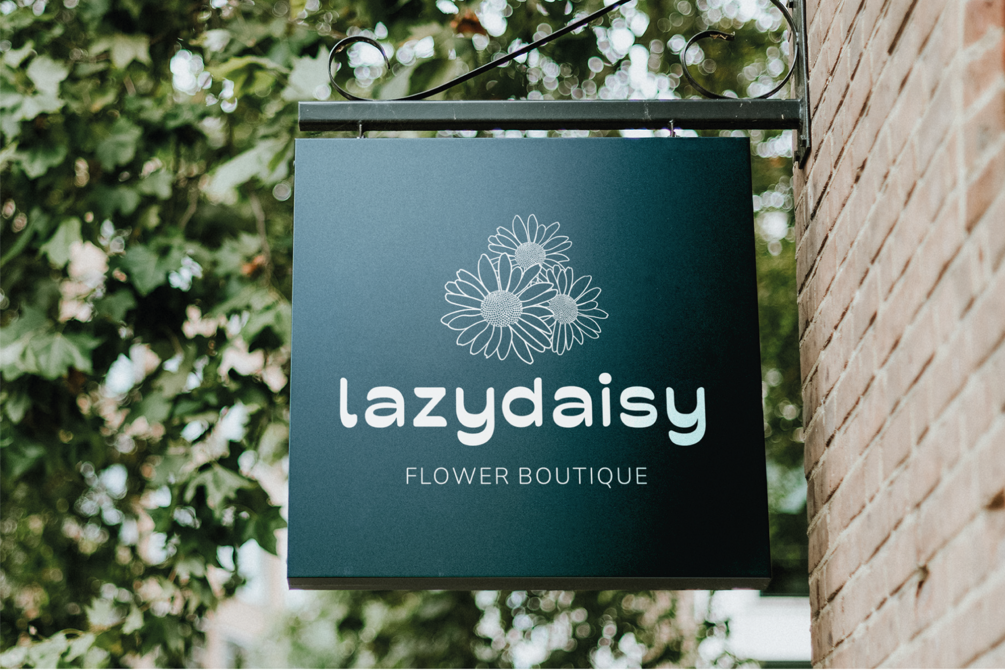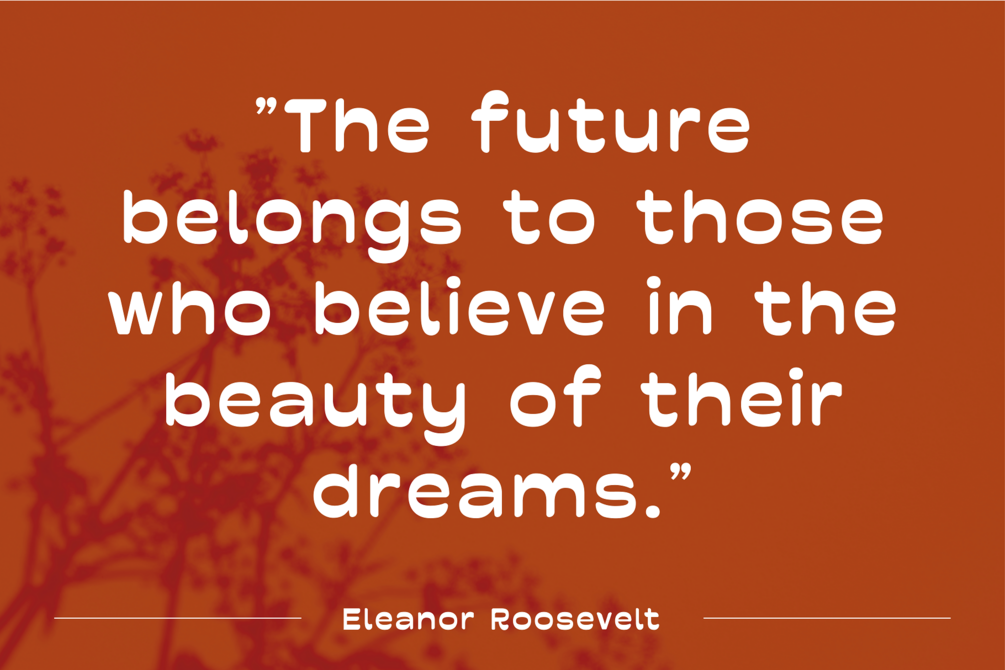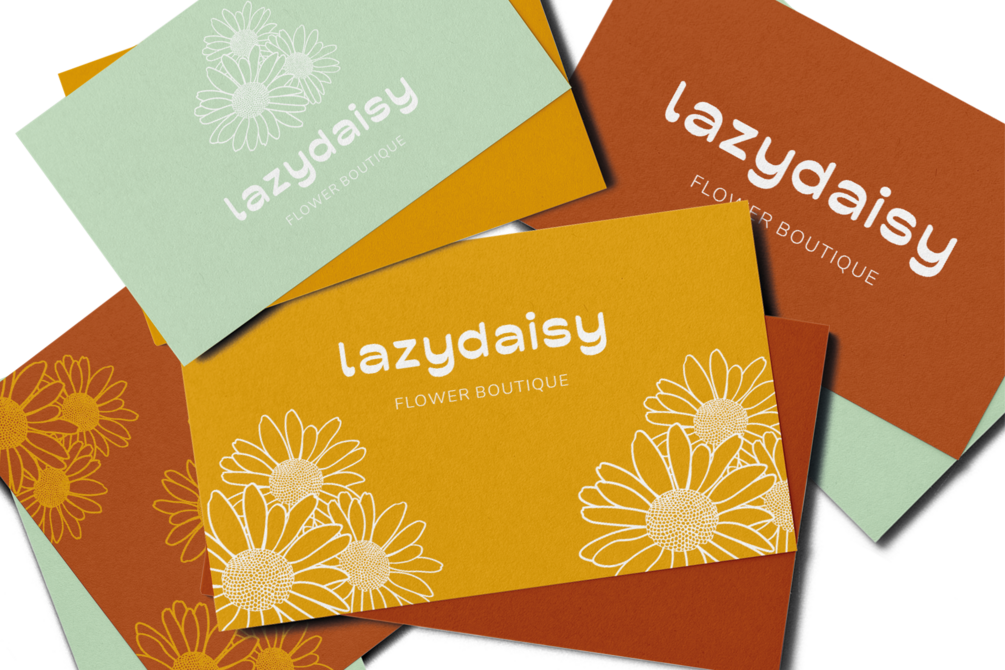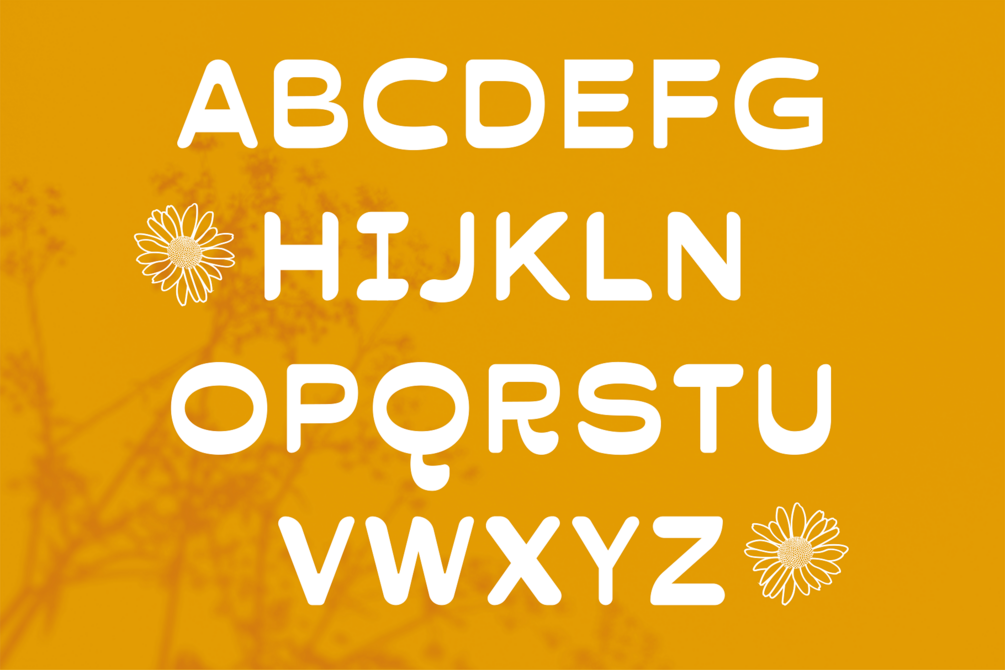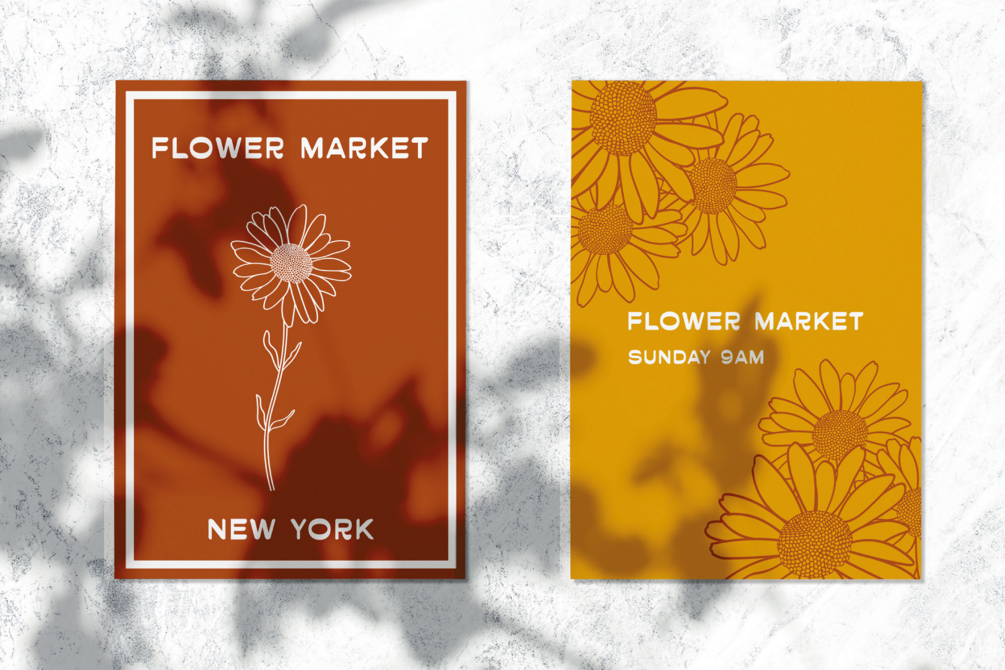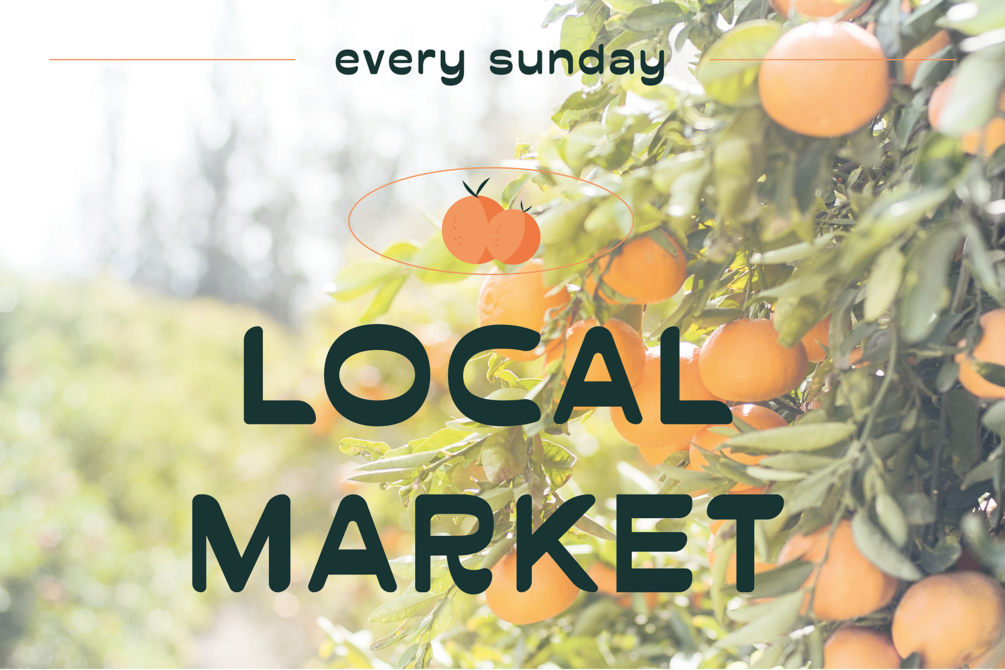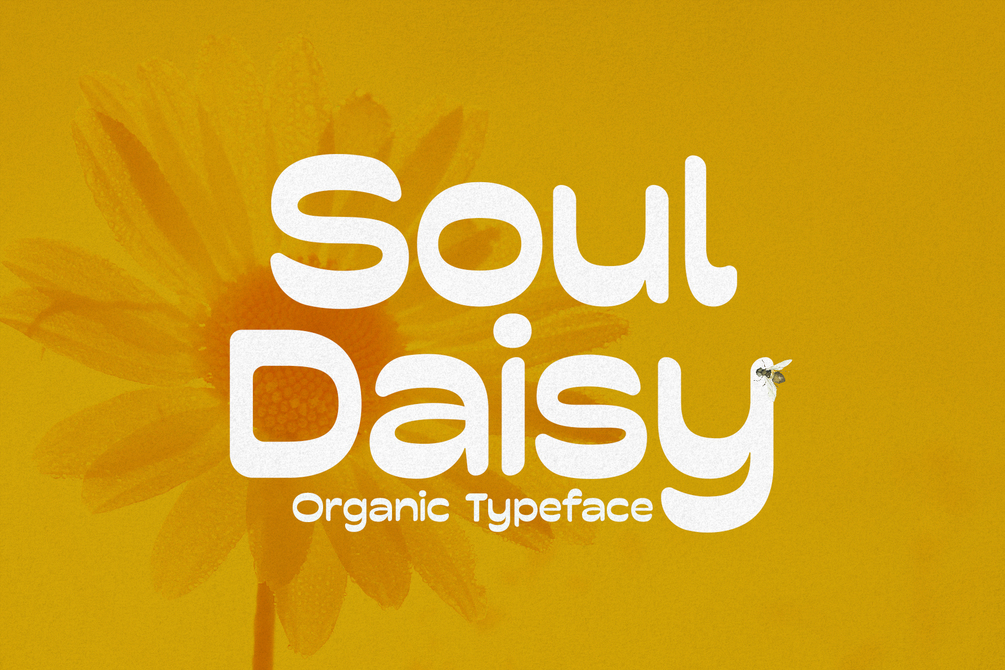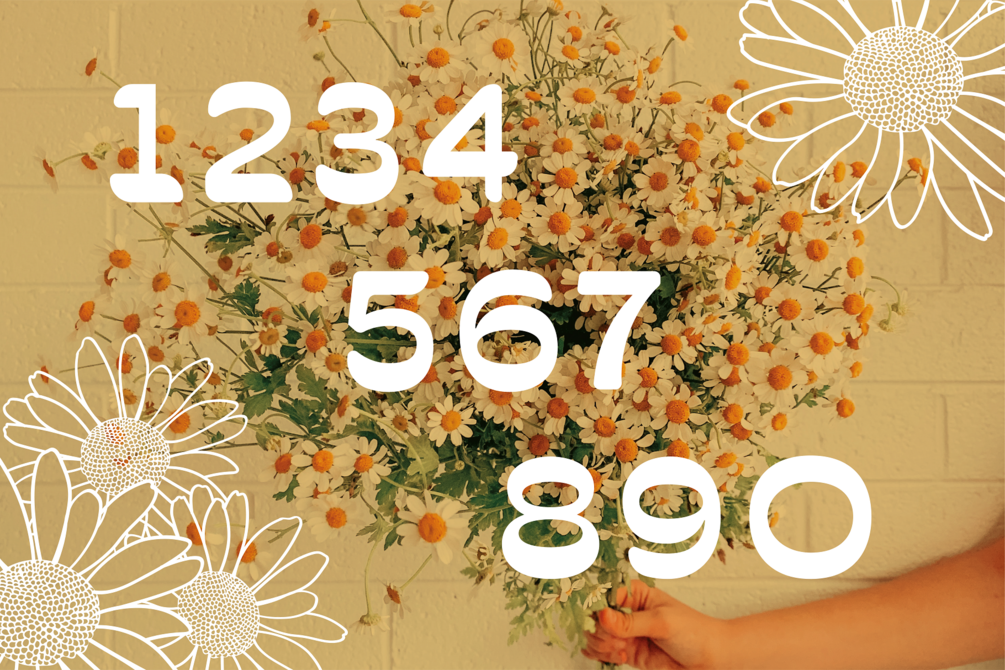
Soul Daisy - Organic Font
Soul Daisy is a friendly rounded typeface with an organic feel. It's soft, gentle, and feminine mood is perfect for corresponding design projects. Use it for posters, album covers, advertising, branding, greeting cards, apparel, flyers, invitations, menus, packaging, signage, merchandise, web design, and more.